A wedding is a once-in-a-lifetime opportunity to make unforgettable memories. However, the visual message that wishes to be conveyed is sometimes inaccurate because of the improper use of fonts. Here we have compiled the most beautiful fonts for wedding that can enhance the romantic and surreal vibe of your designs.
25 Most Beautiful & Romantic Wedding Fonts
Compared to other aspects, the use of fonts in weddings is sometimes overlooked. Yet, such a detail can convey the essence of your wedding, like the formality and the style of the celebration. So, below is the list of the most beautiful fonts for wedding invitations especially for you.
1. Hello Adelyne Calligraphy Font
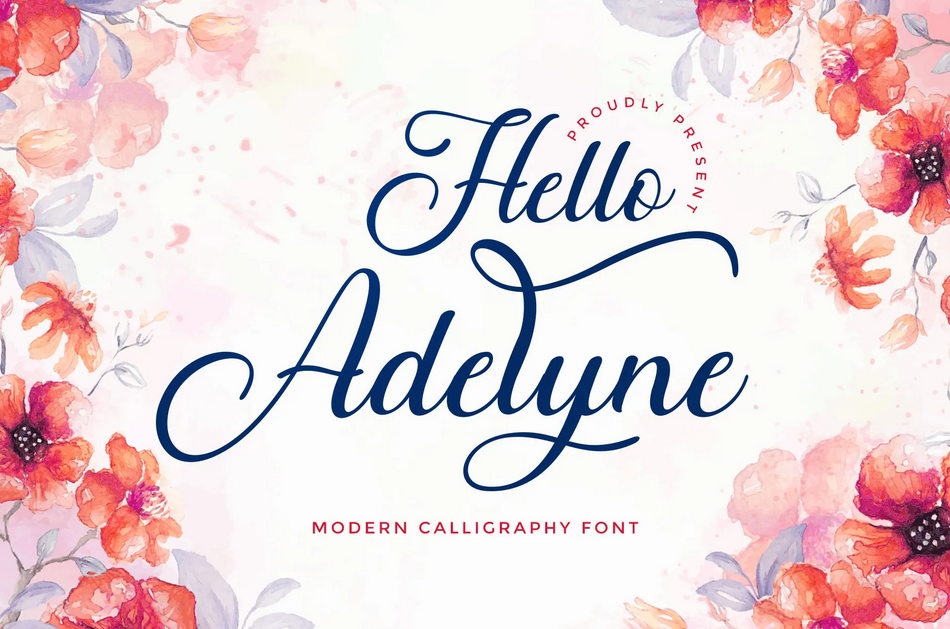
As the name suggests, Hello Adelyne’s feminine swashes and refined straight baseline illustrate the romance between two noble persons in high society.
2. Bosegia Classy Serif Font
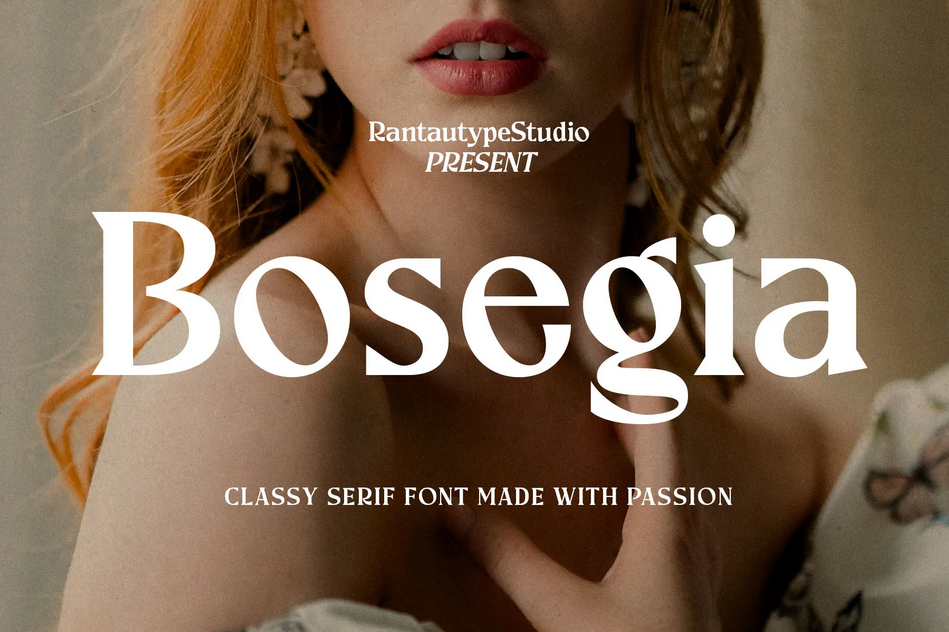
Bosegia’s bracketed serif-style curves on the heads and stems express the font’s classy aura. And the clean contrast simply represents the passion to face a new chapter in life.
3. Nietta Modern Calligraphy Font
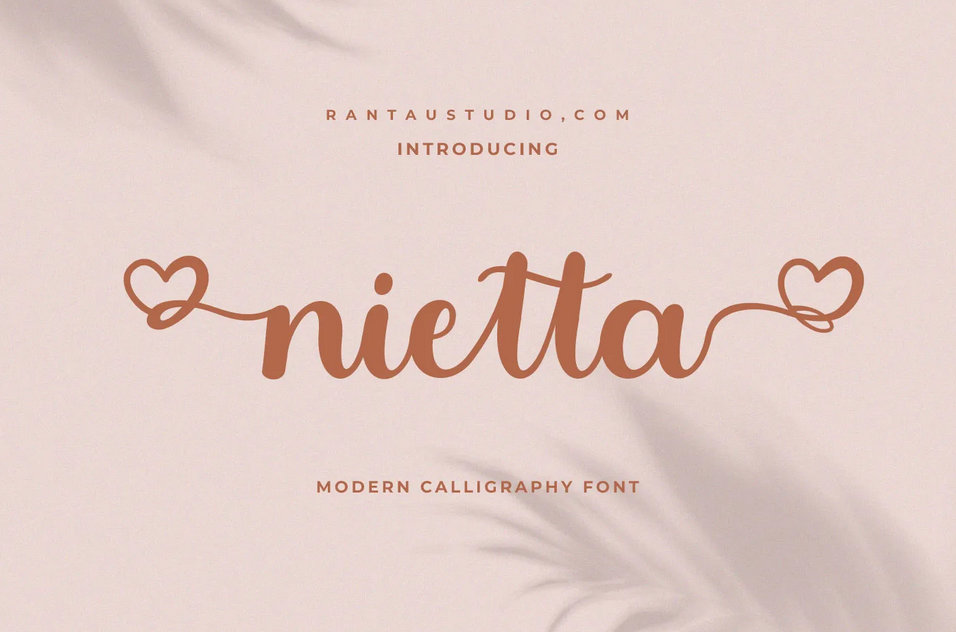
The sweet ligatures of the Nietta font display the irresistible loveliness. In addition to that, the heart decoration adds more to its femininity.
4. Brilona Modern Script Font
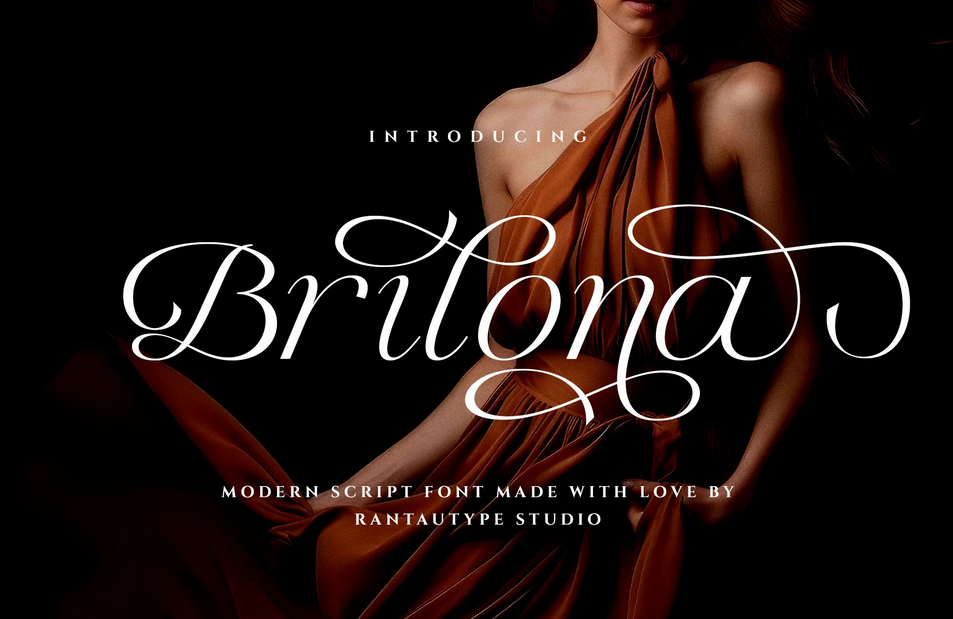
Brilona’s lettering, with gorgeous long embellishments, exudes elegance and maturity. Additionally, the slightly slanted writing gives a sense of a modern vibe.
5. Deliyana Lovely Script Font
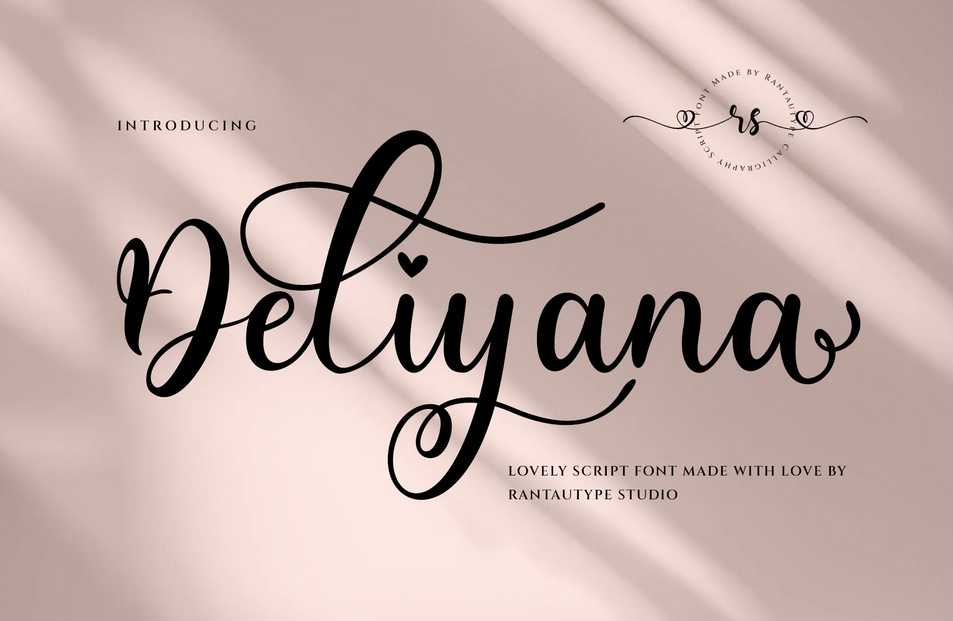
Deliyana’s wonderful swashes speak volumes, along with its heart-shaped diacritical marks and thin connecting strokes.
6. Bridget Lily Business Handwritten Font
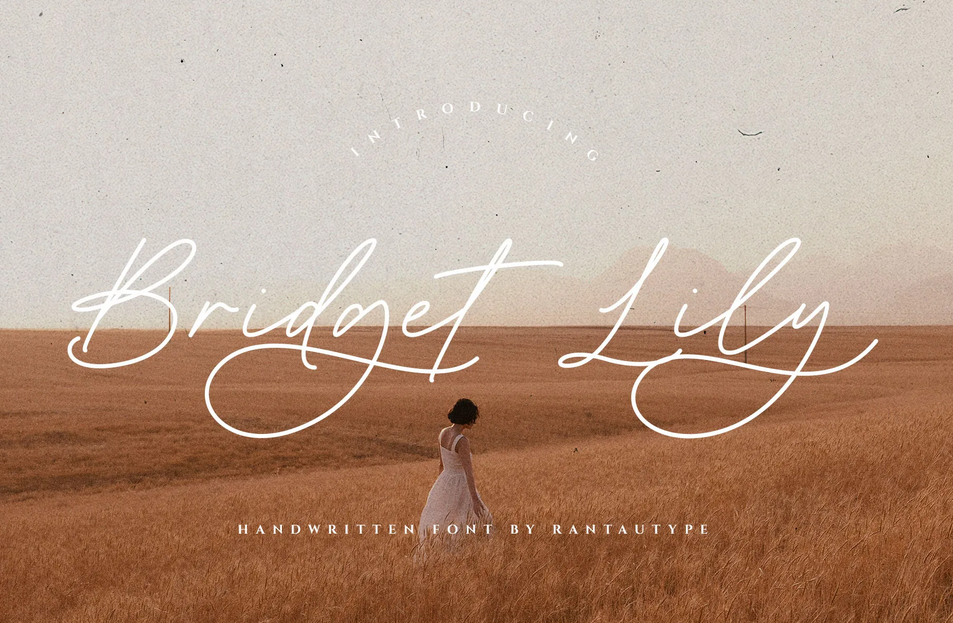
The flowy strokes and the low weight of Bridget Lily represent neatness and purity. And through the loopy decorative strokes, the font is one of the beautiful fonts for wedding.
7. Athaliah Business handwritten Font
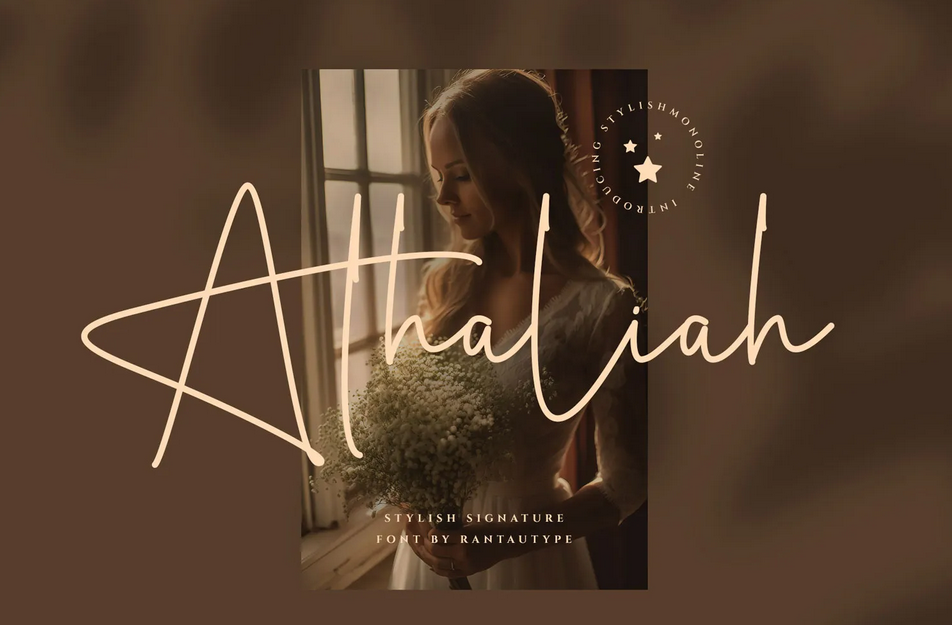
Athaliah’s handwritten strokes are modern-style, with a bouncy baseline and decorative letters.
8. Kathrina Rose Business Handwritten Font
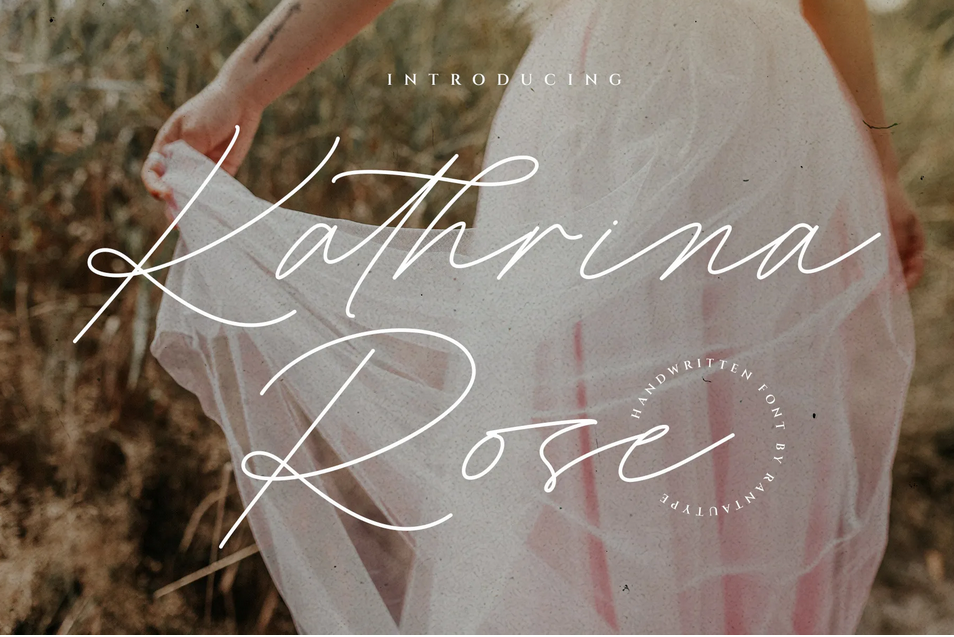
Kathrina Rose’s low-weight strokes are unsullied. With the gorgeous rhythm, the font’s appearance is phenomenal yet formal.
9. Maghelia Modern Serif Font
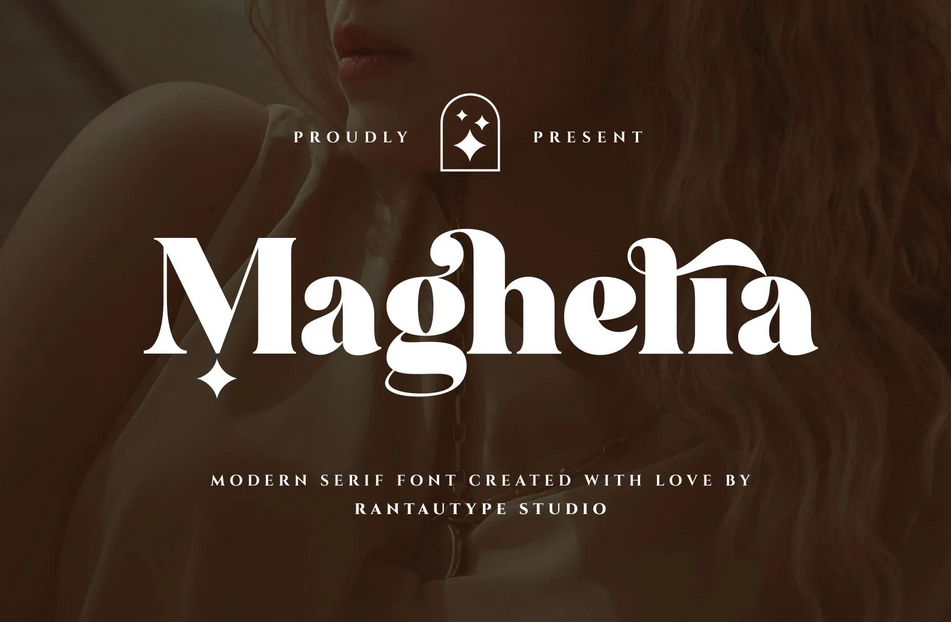
Eye-catching ligatures and the boldness of Maghelia are charming. These characteristics will make your wedding designs look phenomenal and dignified.
10. Bodera Elegant Display Serif Font
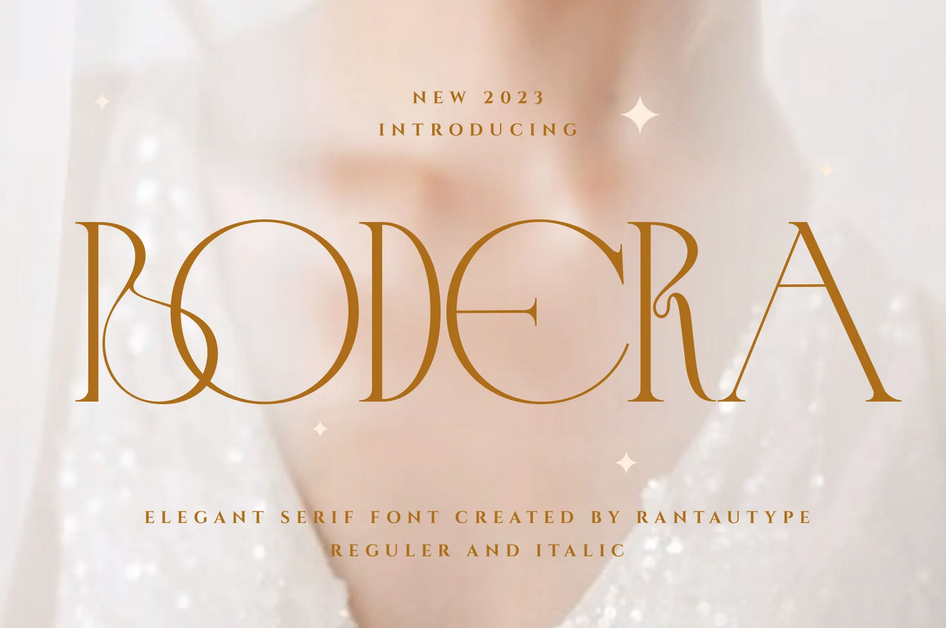
Bodera’s slender strokes and their small width are luxurious. Moreover, the decorative lettering makes the font appear more fashionable.
11. Majestic Love Beautiful Hybrid Serif Font
Majestic Love carves classic calligraphic swashes at the first letter of each word and the connecting strokes, added by serif-style letters.
12. White Magnolia Handwritten Font
With gorgeous swashes and loose rhythm, White Magnolia is one of the most beautiful fonts for wedding that evokes warm formality and modern styles.
13. Pink Floryn Bold Retro Serif Font
Pink Floryn is a retro serif-style font that has heavyweight and decorative swashes. The font is perfect for wedding designs that convey boldness in romance.
14. Clarisa Stories Nostalgic Serif Font
Clarisa Stories’ thick and thin strokes are balanced and nostalgic, like the magazines in the ‘80s. It has two versions, regular and italic, which will be beautiful if both are combined.
15. Marriage Night Handwritten Font
The subtle curves and modern calligraphy in Marriage Night create a romantic presence in your designs.
16. Varose Elegant Serif Font
Valrose is a one-of-a-kind display serif font that has gentle curves, decorative details, depicting a modern touch.
17. Estancia Elegant Signature Font
The natural curves of Estancia are signature-like, with loose spacing between letters and stylish letters.
18. Brityna Calligraphy Font
With calligraphic upper cases, Birtyna is one of the most beautiful fonts for wedding that resembles a luxurious and stylish signature.
19. Bryan Richard Signature Font
Bryan Richard’s handwritten strokes are crafted beautifully to appear visually striking, with a unique swash at the last letter of a word.
20. Heguita Modern Script Font